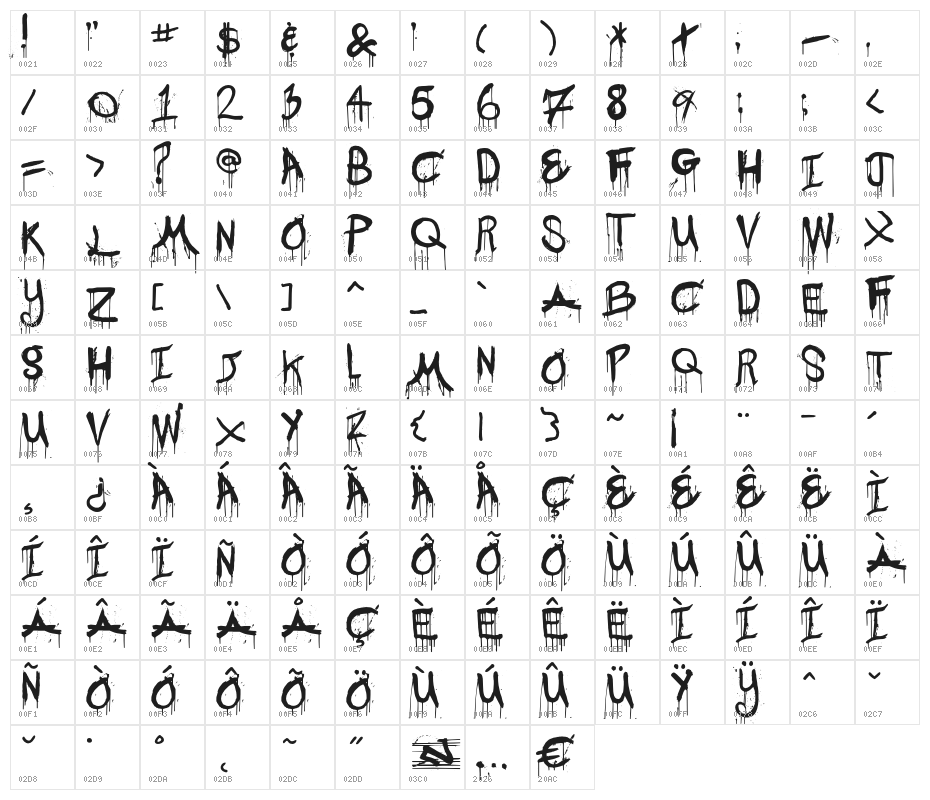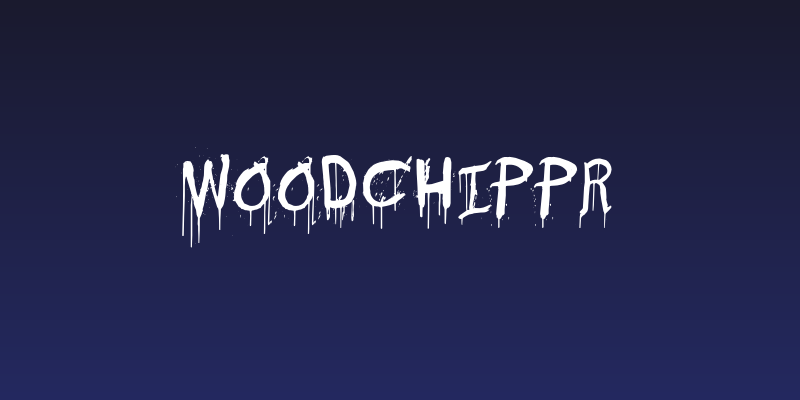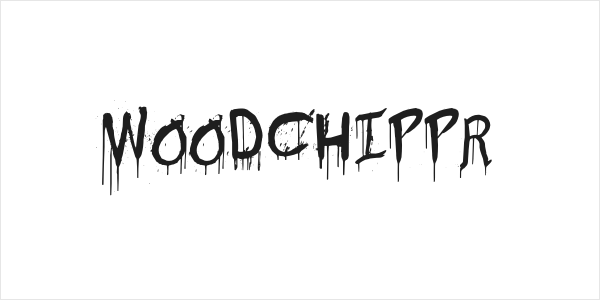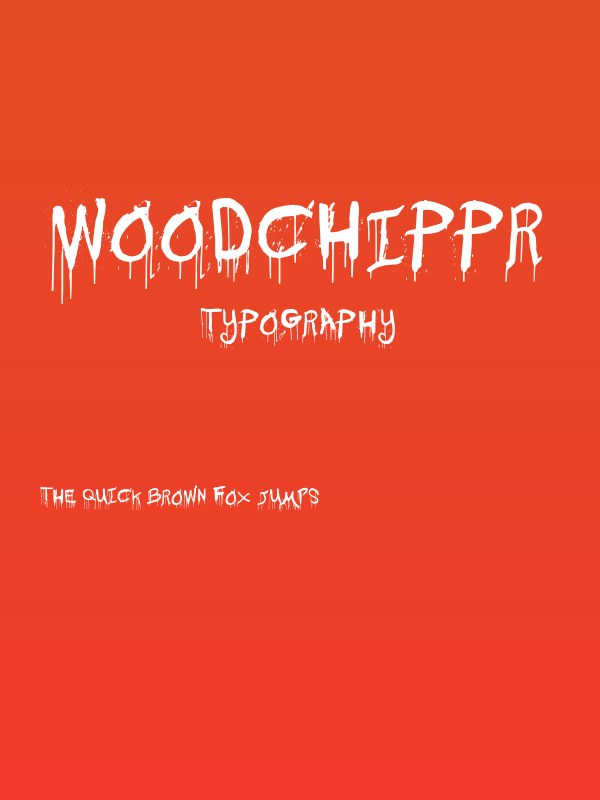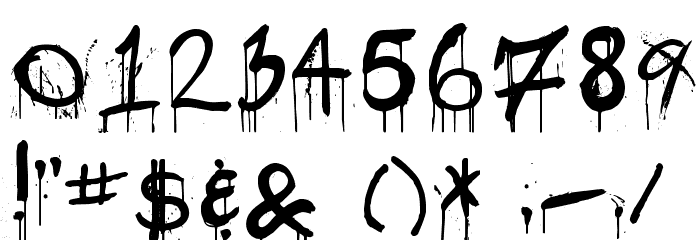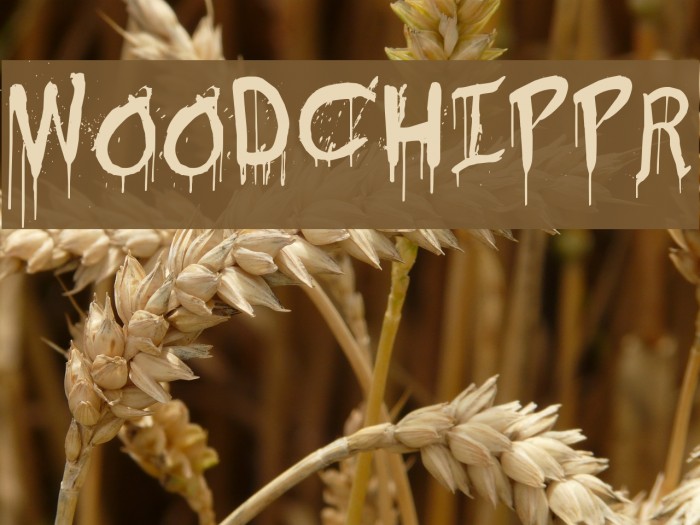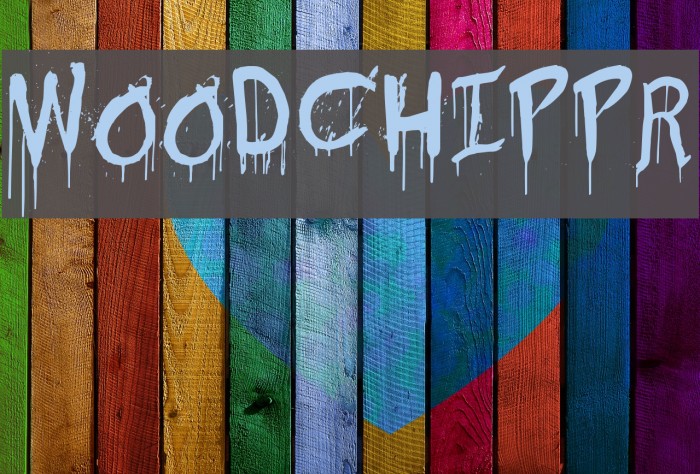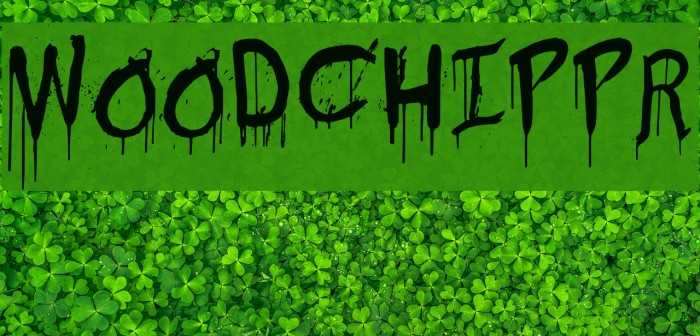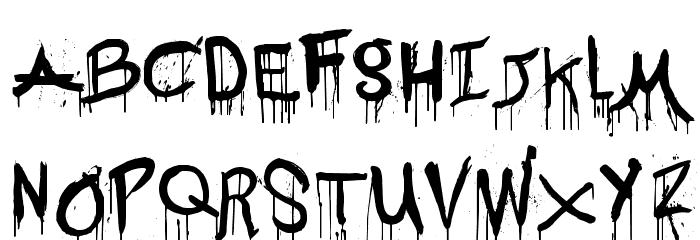
Woodchippr Font
Woodchippr Description
This font features a bold, graffiti-inspired style with a dripping paint effect, giving it a raw and edgy appearance. The characters are irregular and dynamic, with varying stroke widths that create a sense of movement and energy. The uppercase and lowercase letters maintain a consistent theme, while the numbers and special characters complement the overall aesthetic. This font is ideal for projects that require a rebellious or urban vibe, such as street art designs, music album covers, or edgy branding materials.
| Overall Style | Urban, Edgy, Graffiti |
| Use Case | Logos, Posters, Headlines |
| Proposed Projects | Street art designs, music album covers, edgy branding materials, event posters. |